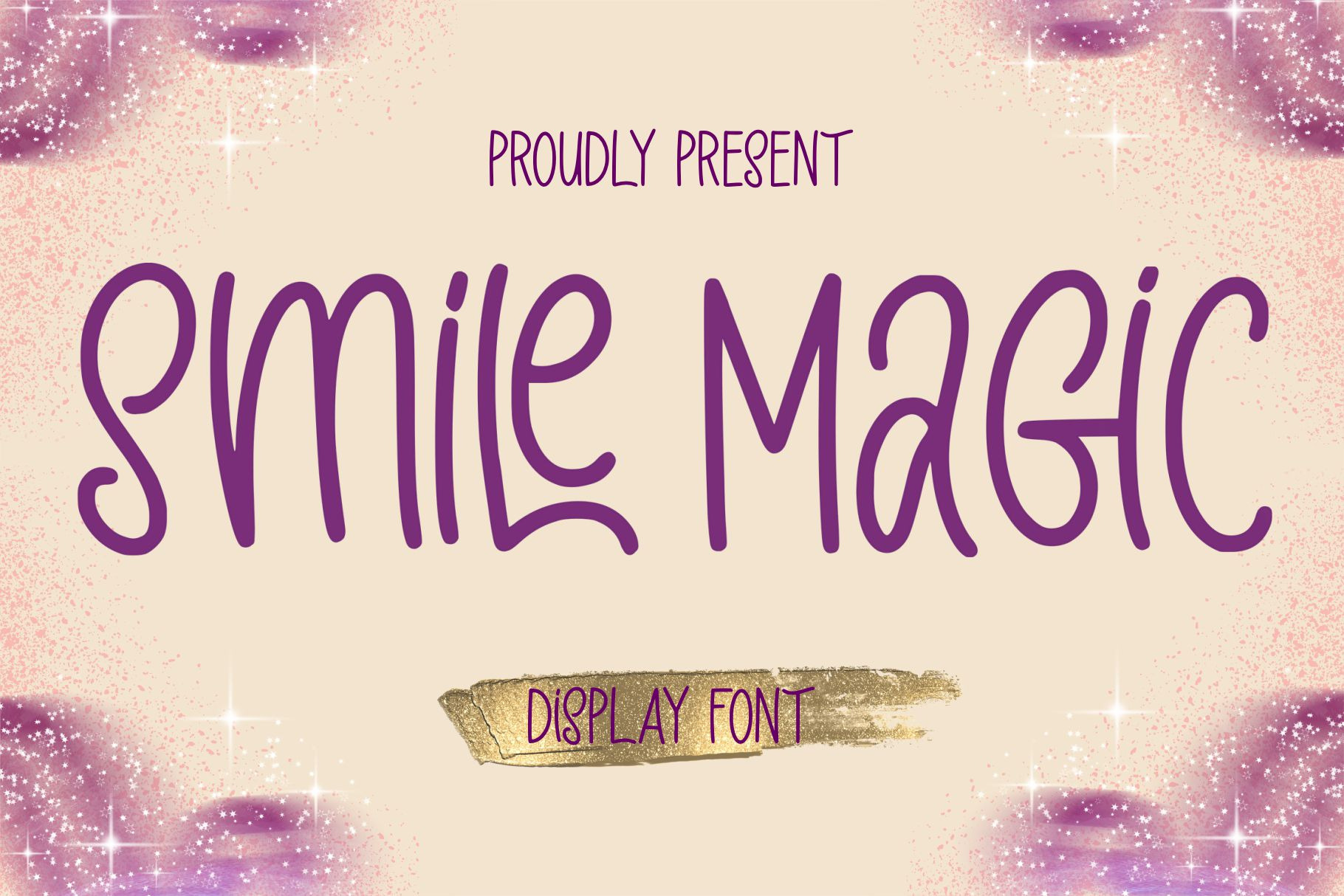
Smile Magic | Handwritten Font
Smile Magic is a modern display font with a magical twist. It’s bold, distinct, and full of character, with a whimsical feel that’s sure to capture attention. Perfect for creating eye-catching headlines and logos. Keep in mind that the font is PUA encoded, meaning that you can access all delightful glyphs and swashes effortlessly.